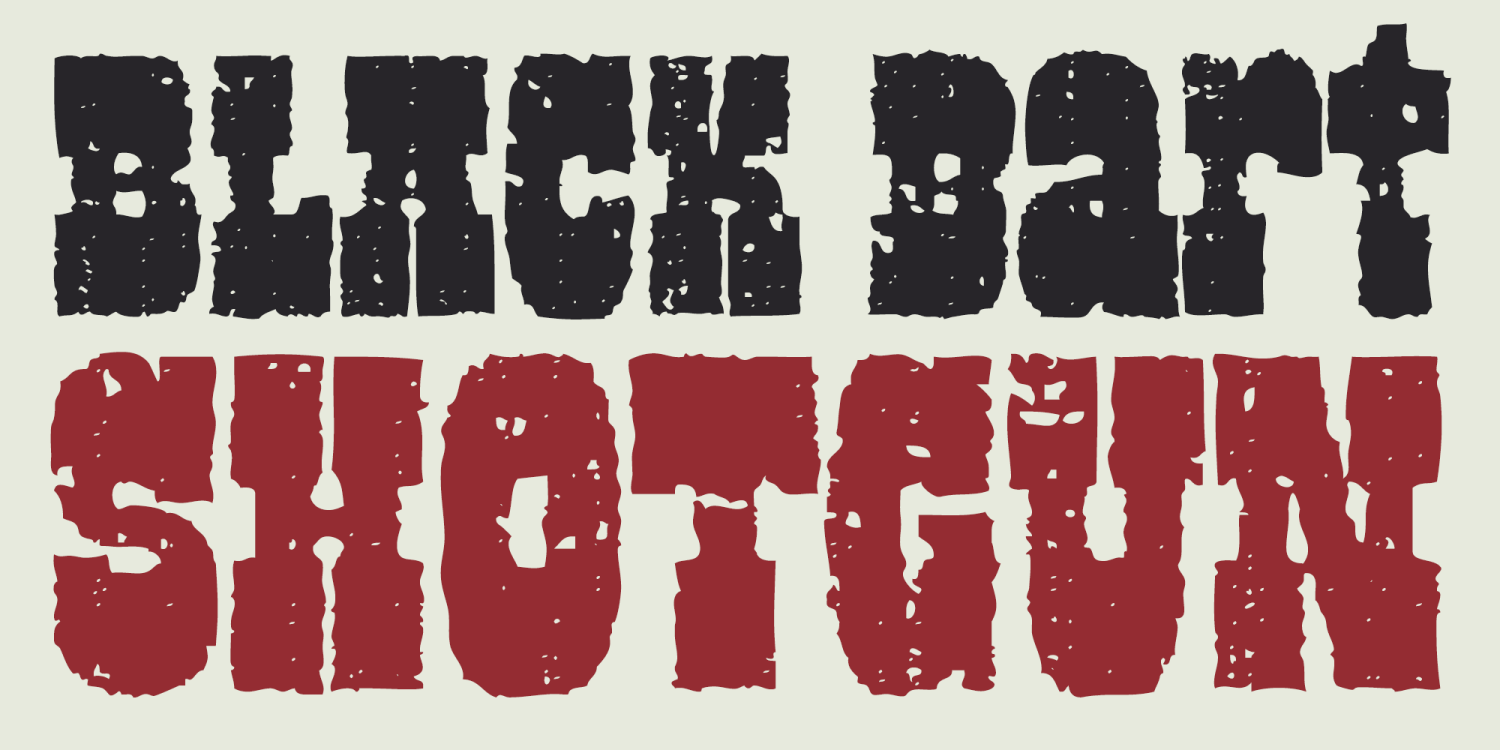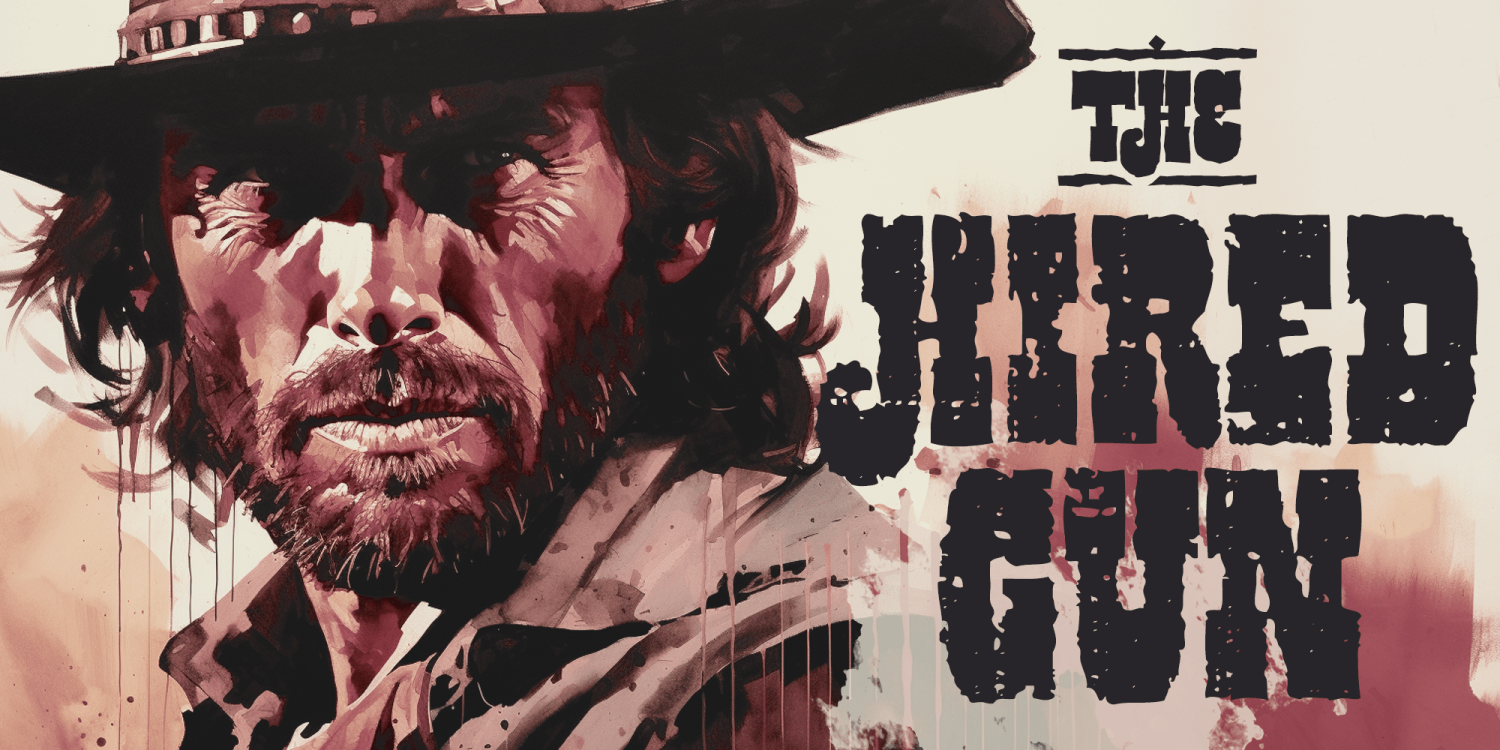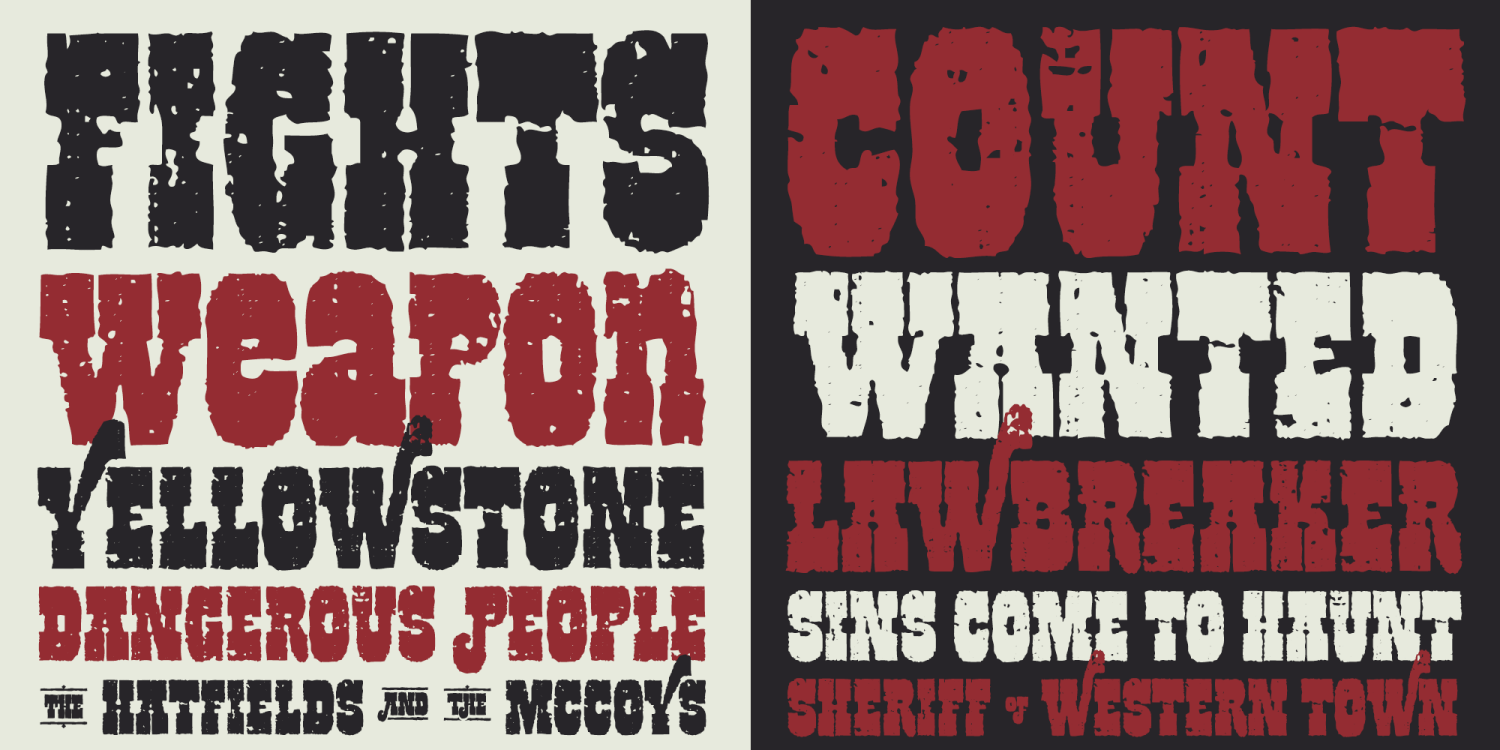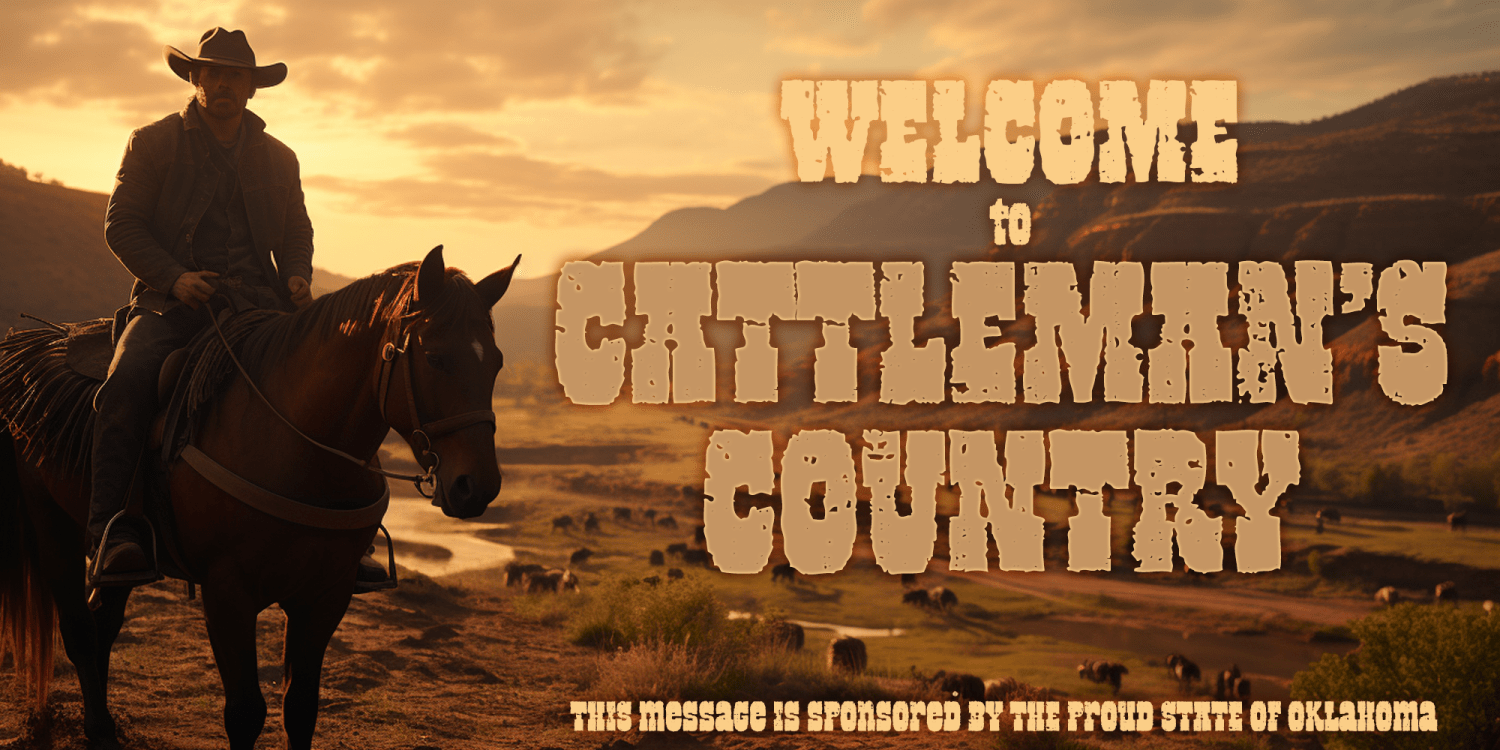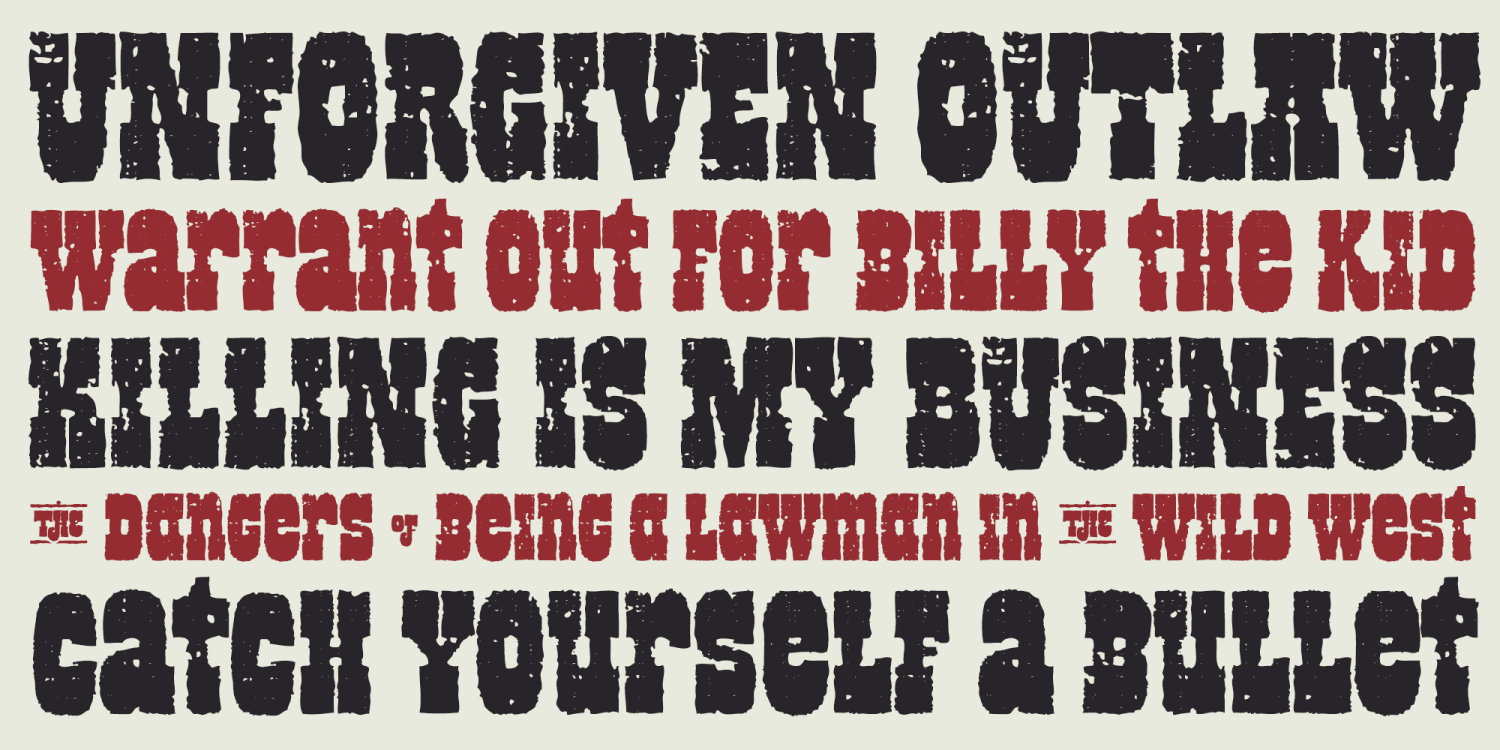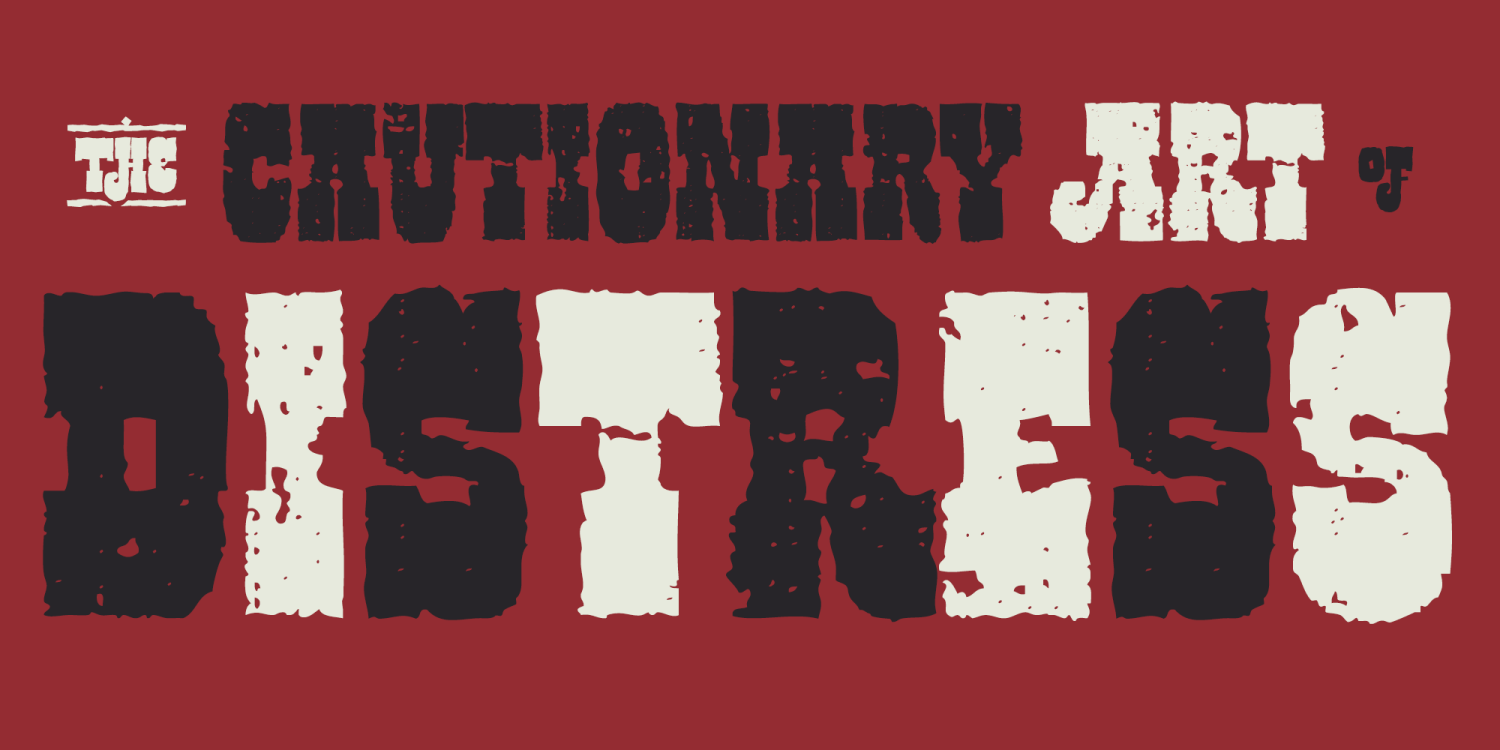
Black Bart Shotgun
Black Bart Shotgun is the battered, timeworn sibling of Black Bart—an aged wood type display face that looks like it’s been weathered for decades, with erosion, pitting, and chipped-paint texture like an old barn sign that’s survived every storm. Bold, gritty, and unapologetically rough, it brings instant outlaw character to headlines and branding that want a heavy western voice with authentic wear baked in.
Black Bart Shotgun includes the same rich OpenType feature set as the original, giving you built-in variety and visual “handmade” rhythm without extra effort. Stylistic alternates offer additional character flavors and multiple starting and middle swash options, while special word ligatures for OF, THE, and AND add classic poster utility. Contextual alternates provide alternate forms for those word ligatures and help typography feel less repetitive, making it easy to dial in anything from rugged and restrained to rowdy and flamboyant.
Perfect for western graphics, distressed signage, vintage packaging, bourbon and hot sauce labels, band posters, outlaw branding, apparel, editorial headlines, rodeo and festival promos, and any project that needs bold wood type energy with rough, eroded texture and a deep stash of typographic tricks.